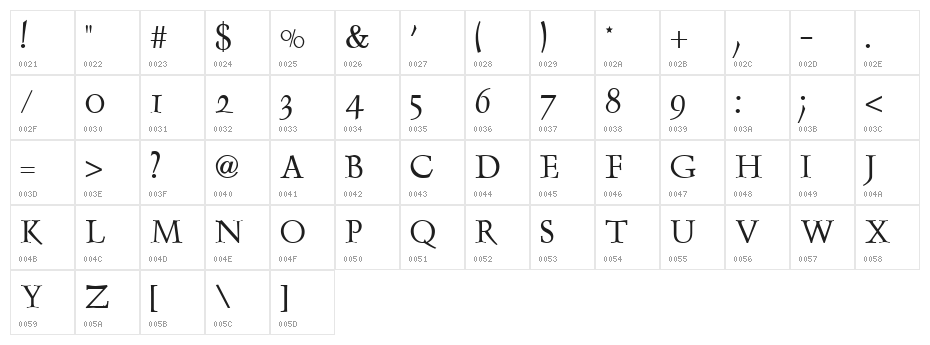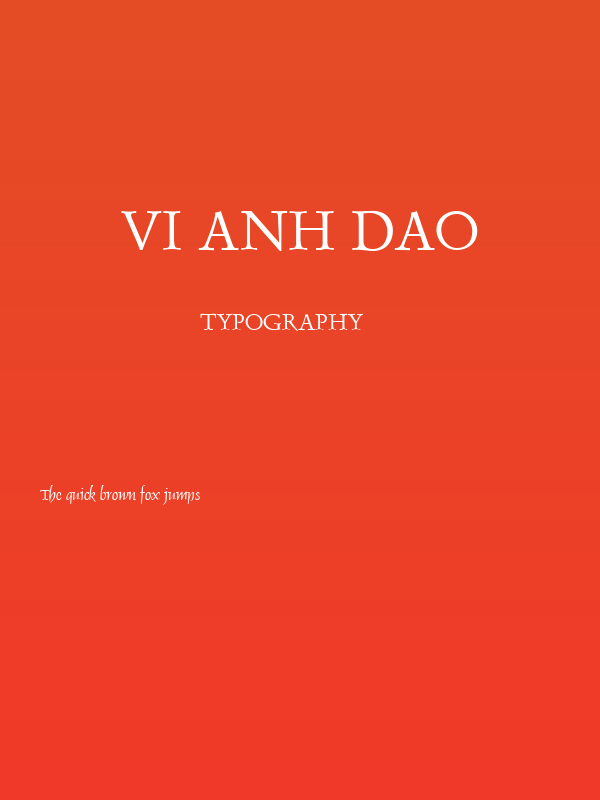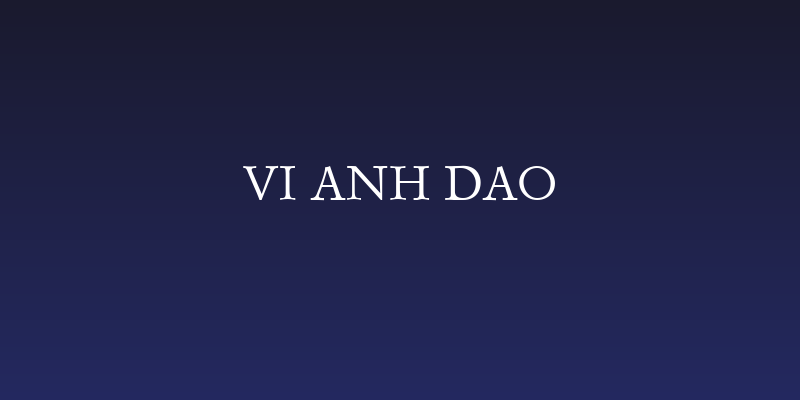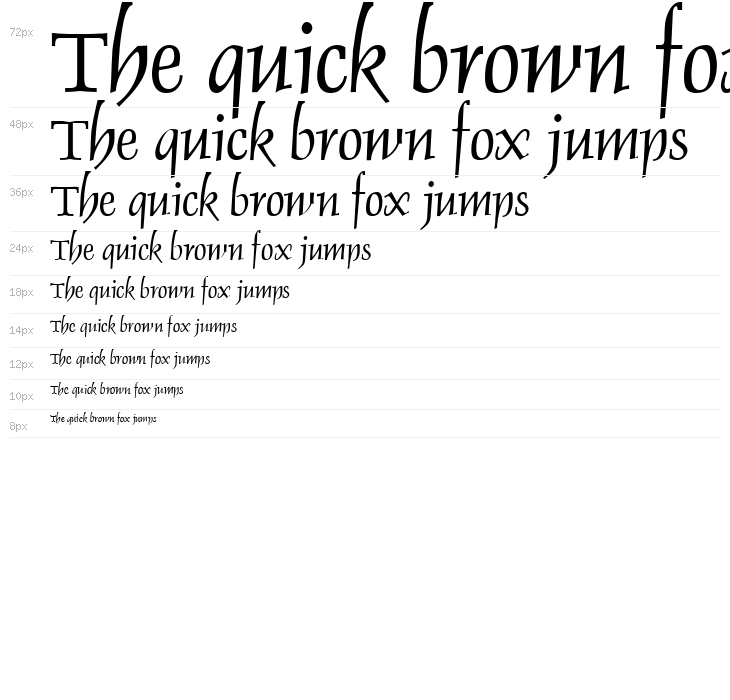
VI Anh Dao Font
VI Anh Dao Description
This font exhibits a classic serif style with a touch of elegance and sophistication. The uppercase letters are bold and prominent, featuring sharp serifs that add a traditional feel. The lowercase letters have a slight italic slant, providing a dynamic and fluid appearance. Numbers are clear and well-defined, maintaining consistency with the overall serif design. Special characters are crafted with attention to detail, ensuring they complement the alphabetic characters seamlessly. The font's design is suitable for projects that require a formal and refined aesthetic.
| Proposed Projects | Ideal for book covers, formal invitations, branding materials, and editorial design. |